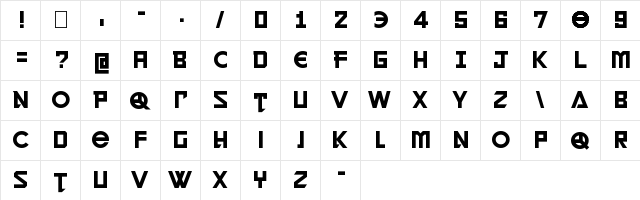
LECO 2014 Alternate Regular
Design Context for LECO 2014 Alternate Typeface
LECO 2014 Alternate is a composed and adaptable typeface that performs quietly and consistently across a wide range of design contexts.